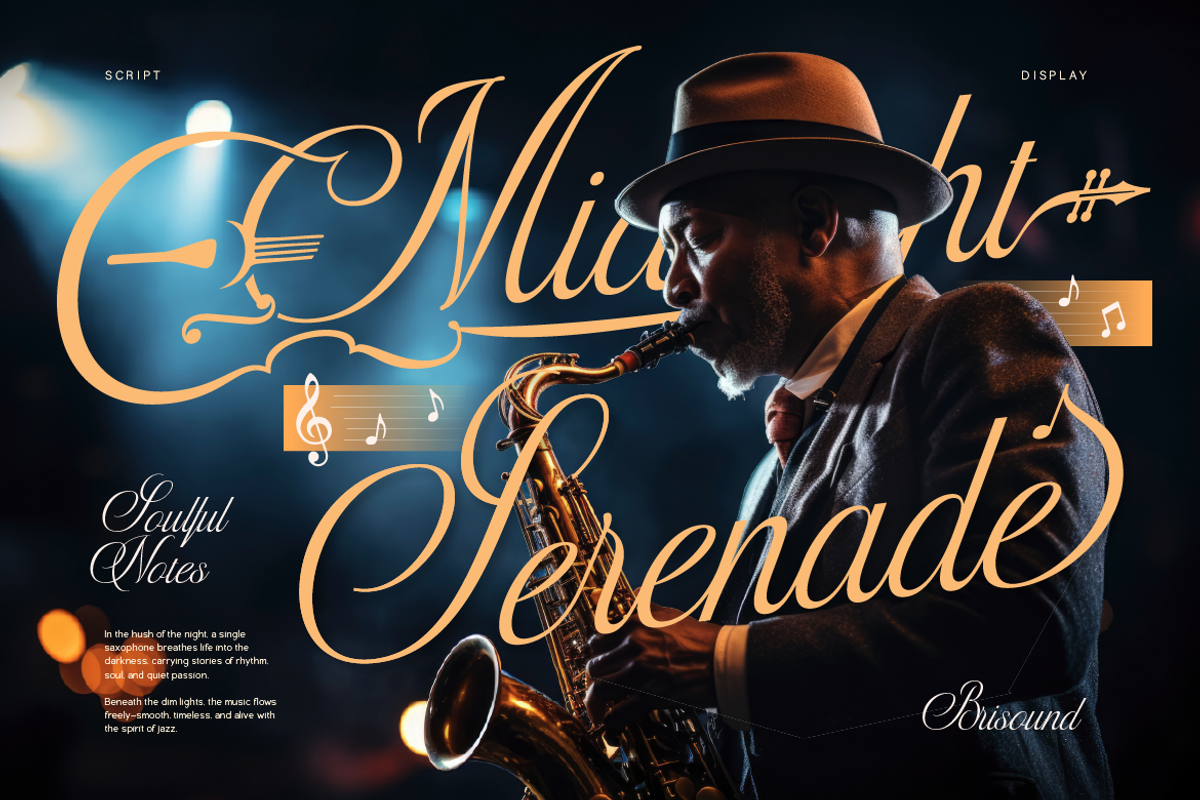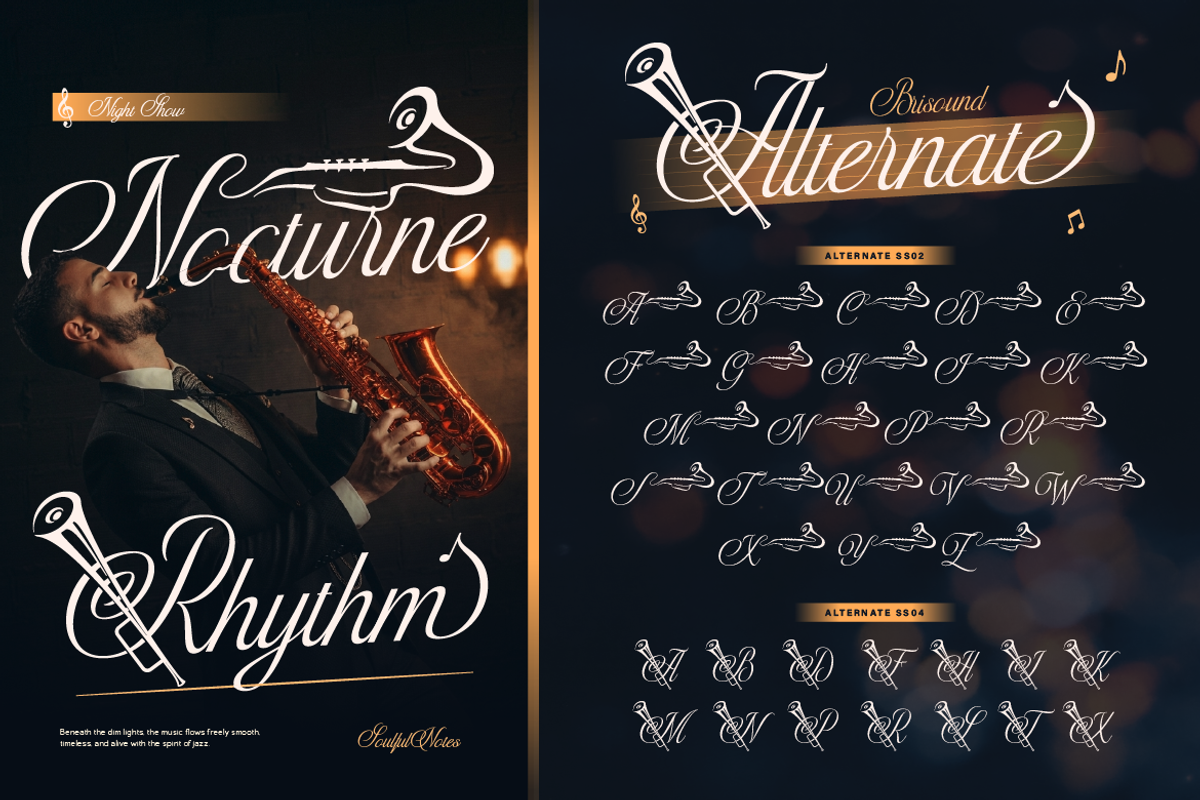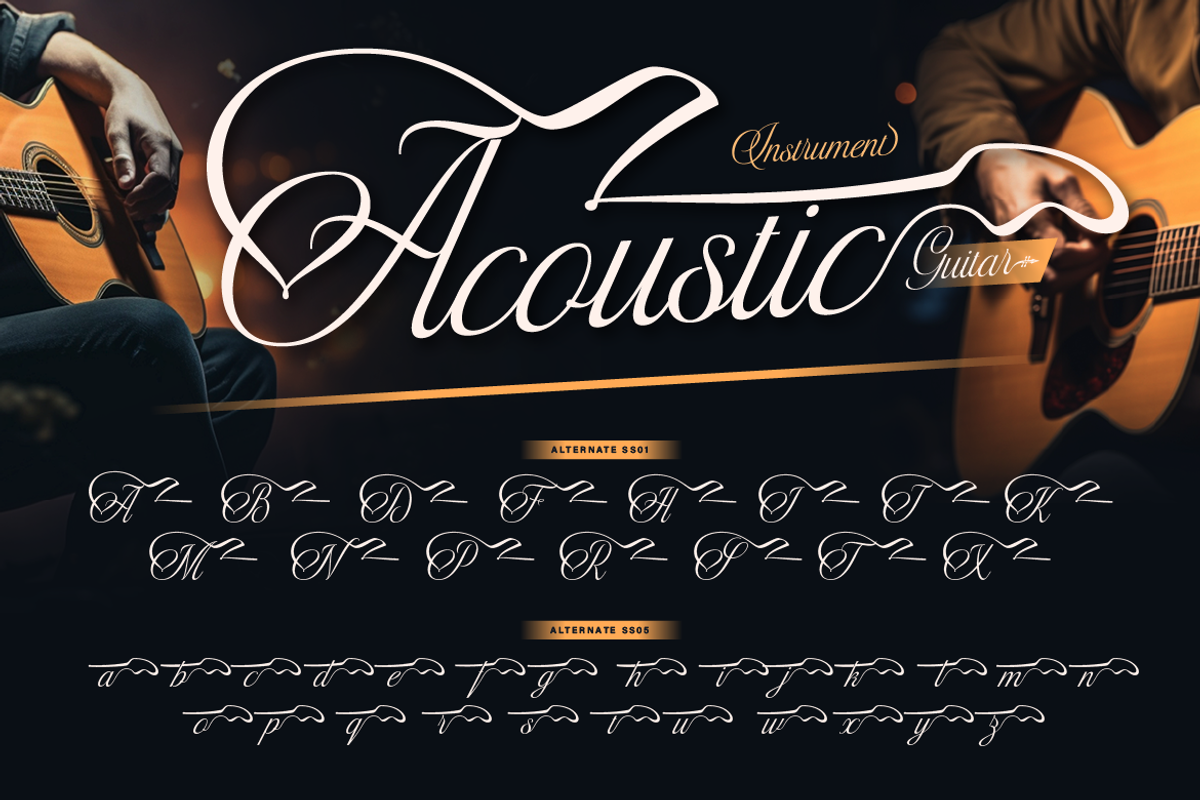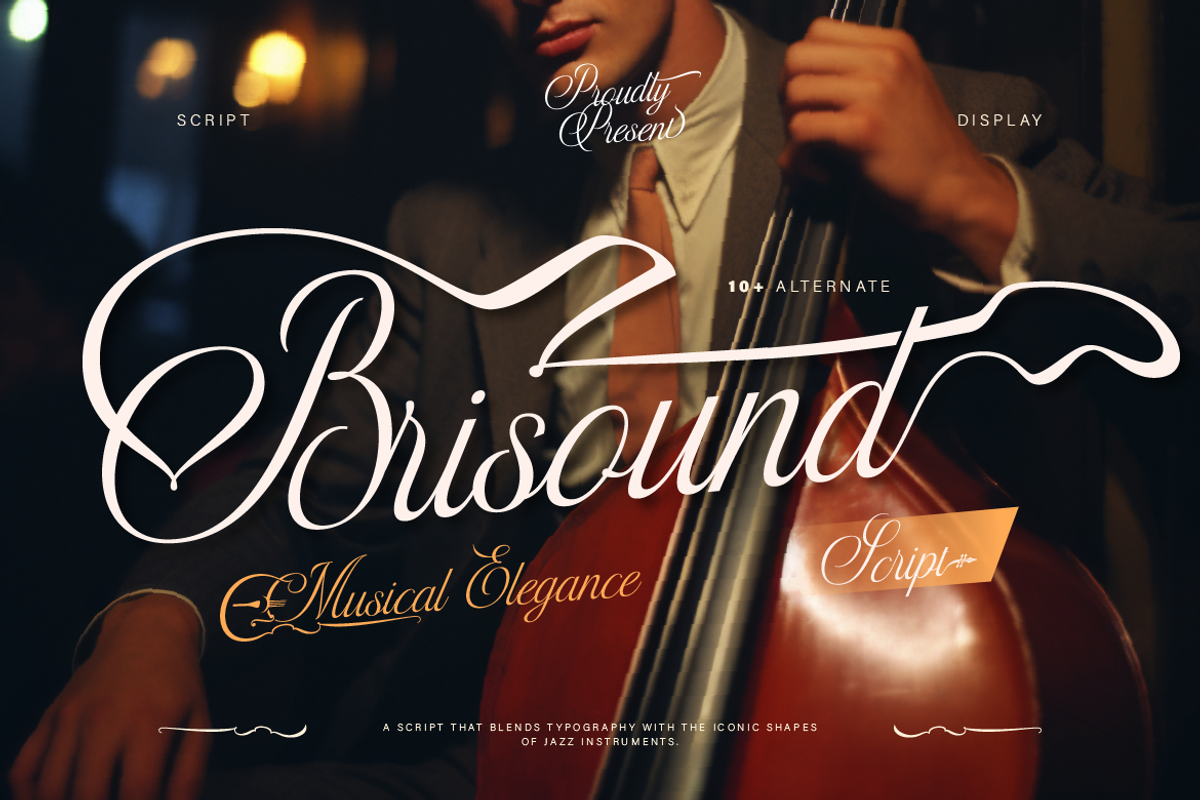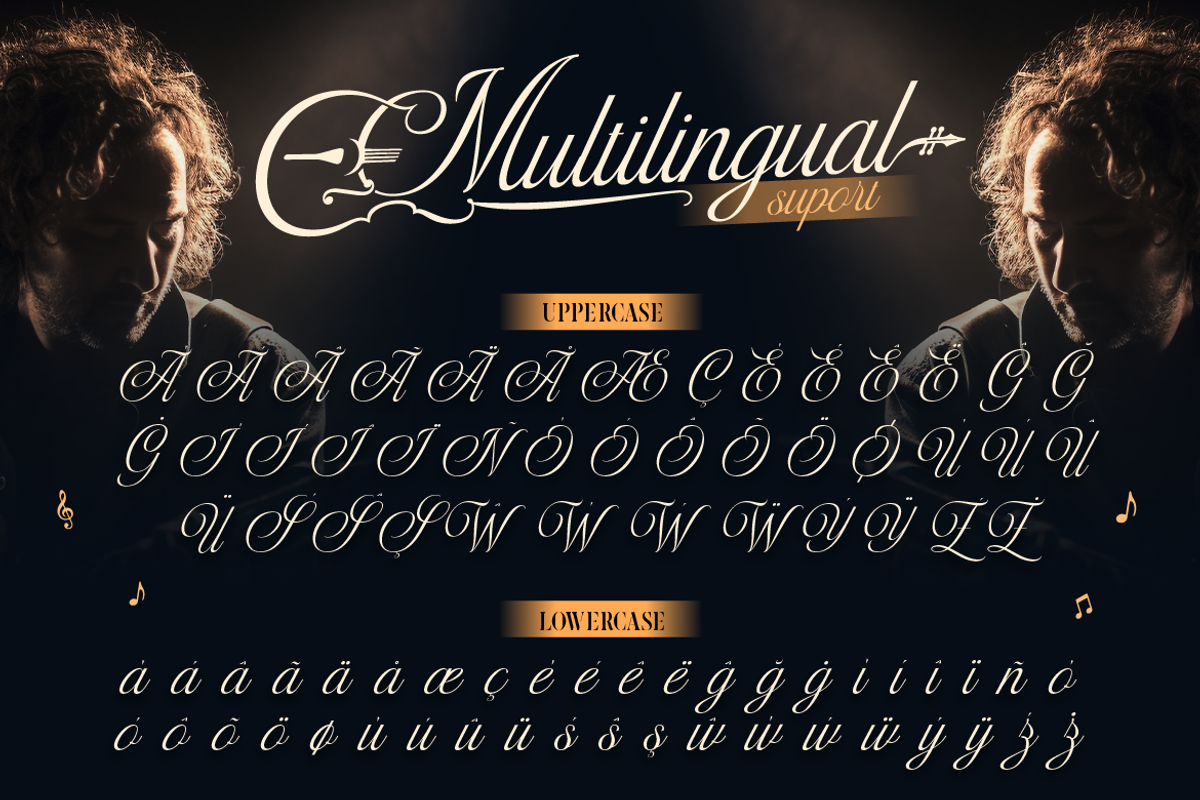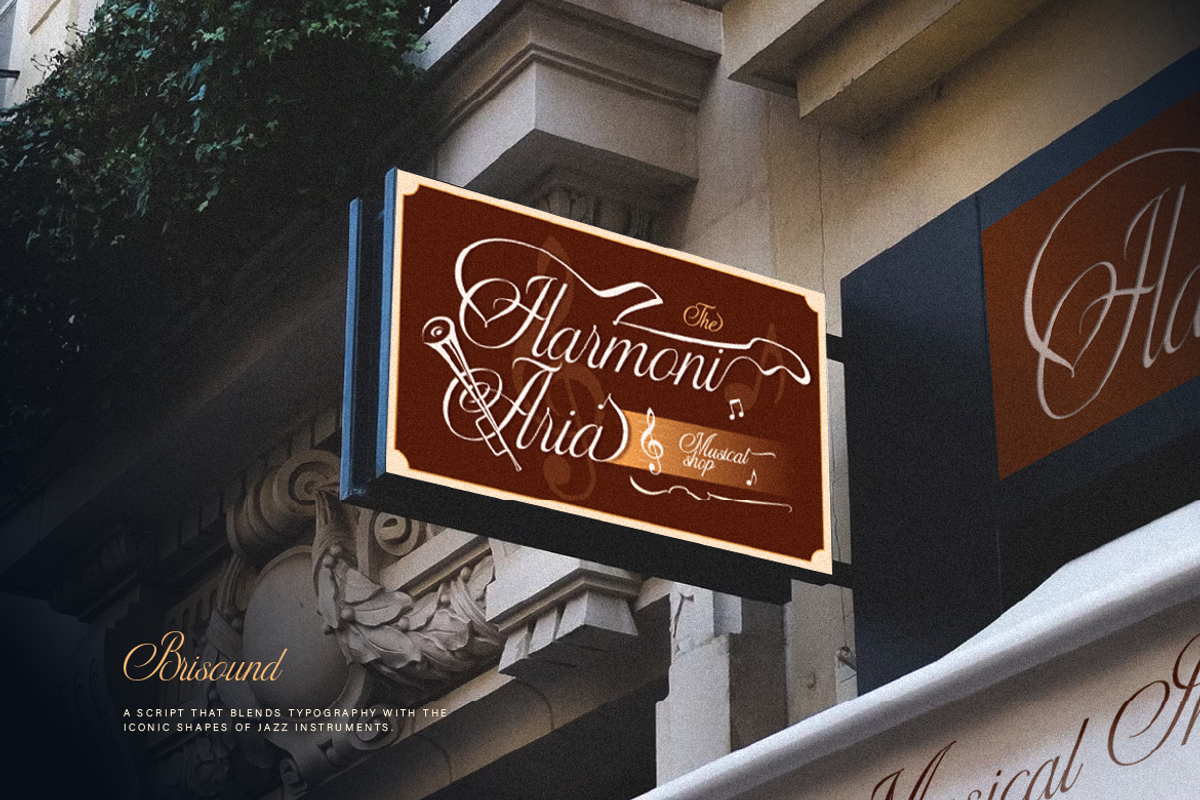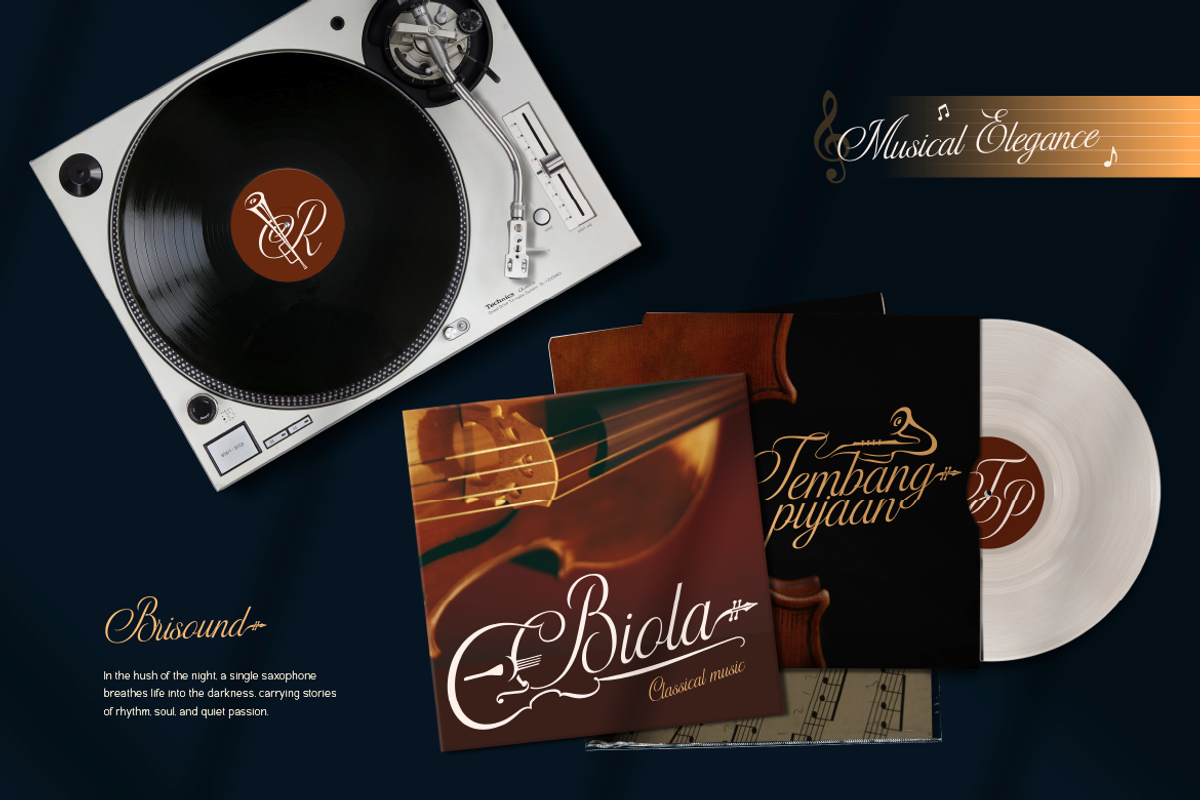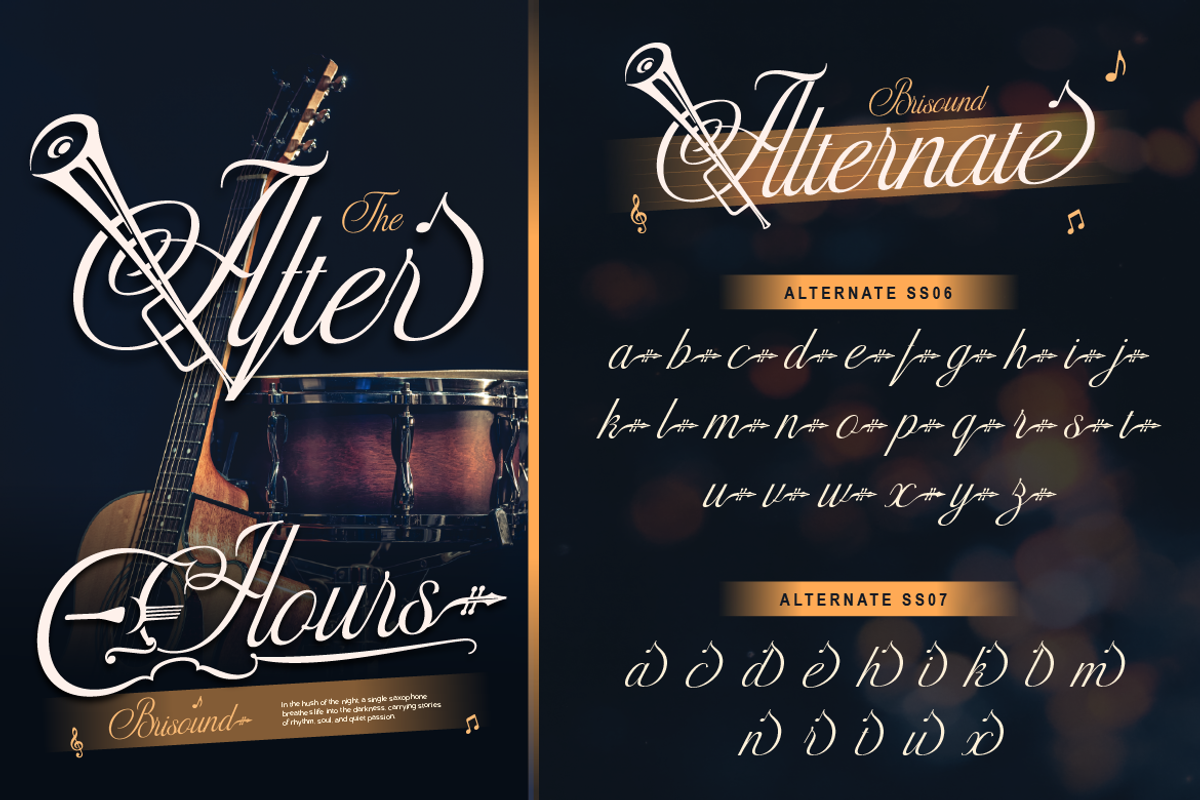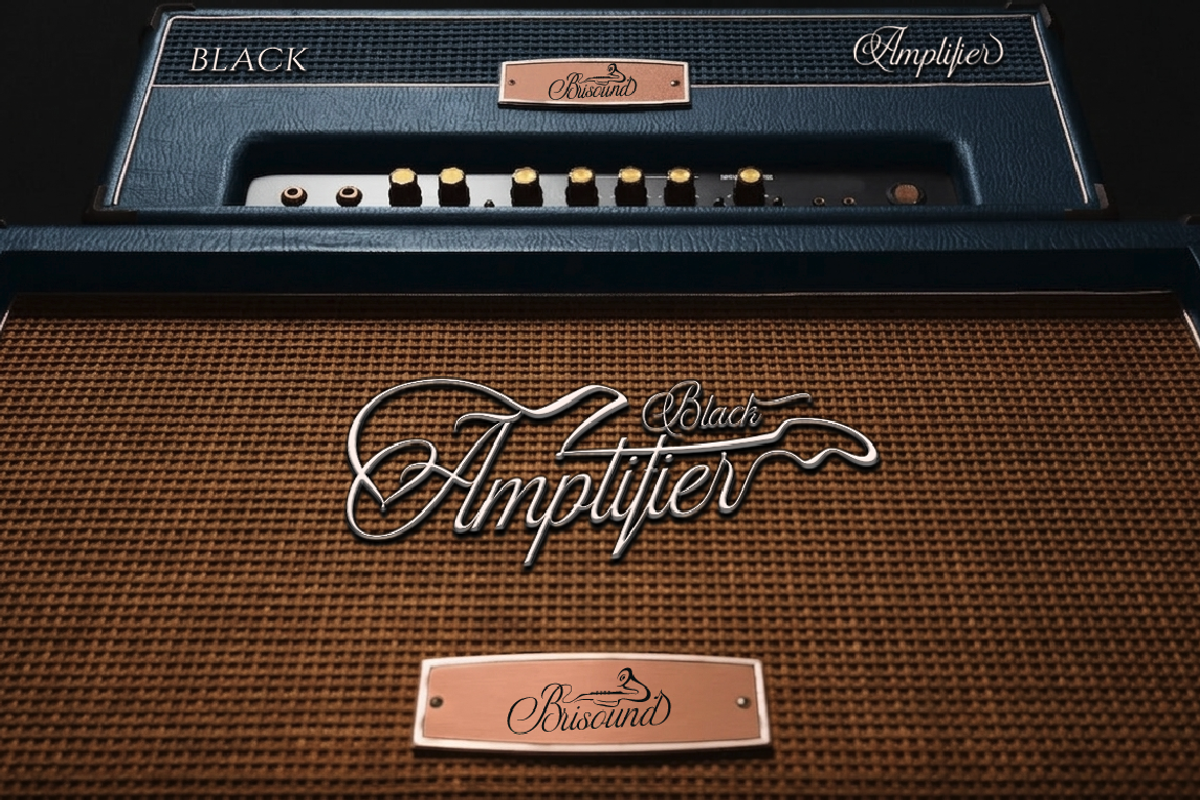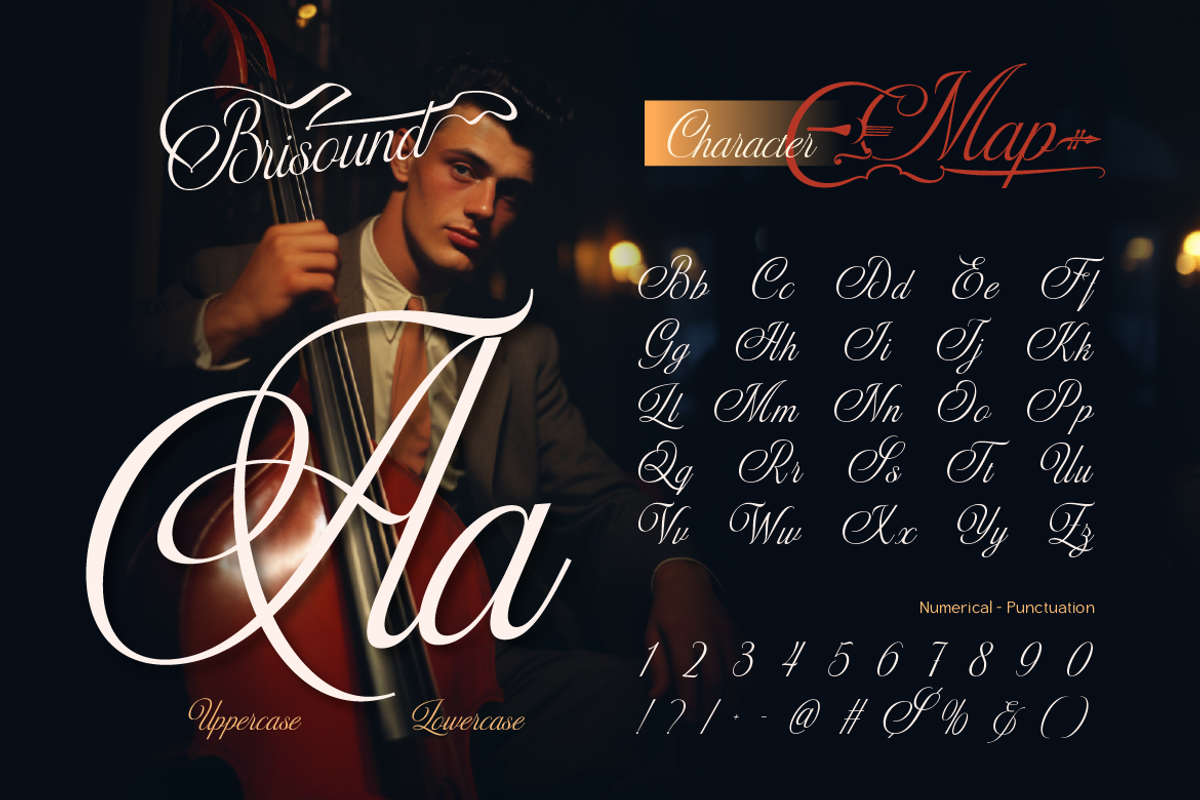
Brisound
Brisound is a beautiful script font that captures the soul of music and elegance in every stroke. Inspired by classic jazz instruments and smooth melodies, this font brings a luxurious and artistic feel to your designs. With its flowing curves, stylish swashes, and unique character shapes, Brisound is perfect for creating eye-catching typography that feels both classy and expressive. It also comes with 10+ alternate characters, giving you more flexibility to create custom and dynamic lettering. This font is designed to stand out, whether you're working on branding, editorial layouts, or creative projects that need a touch of sophistication. Perfect for logo design, branding & identity, music poster & album covers, wedding invitations, editorial & magazine layouts, social media graphics, luxury product packaging.